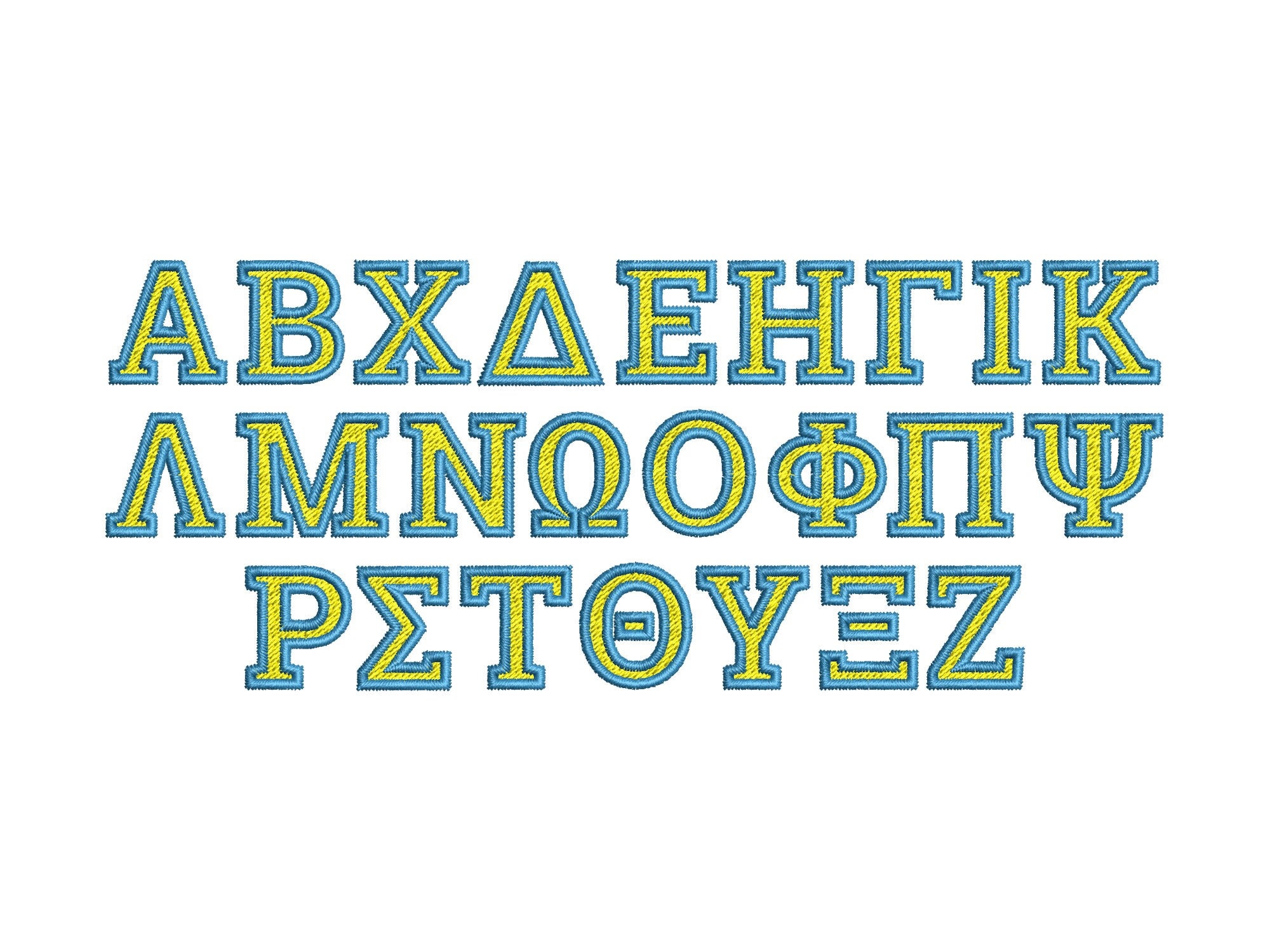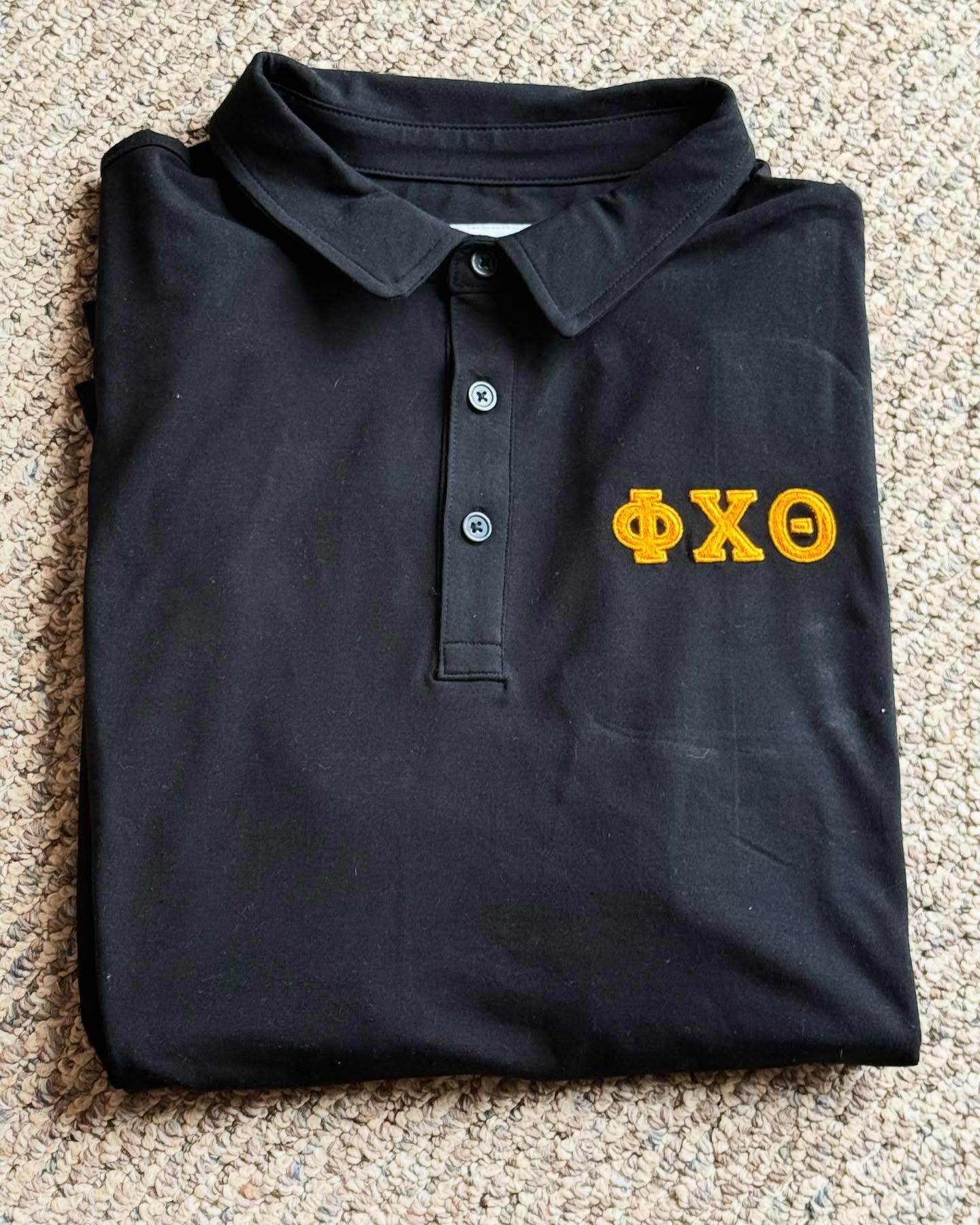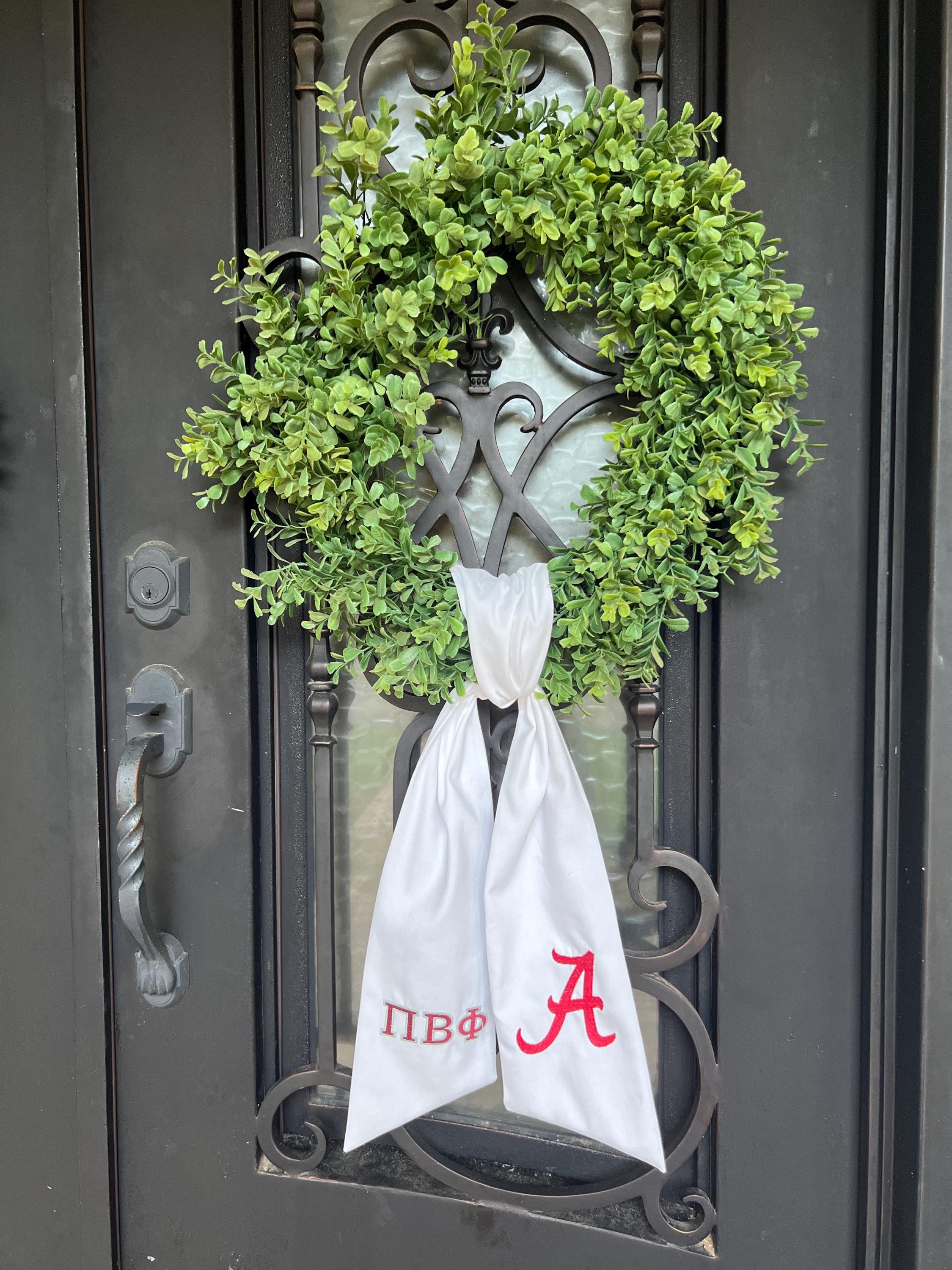
MINI fill stitch 2 colors Greek FONT alphabet sororities fraternities sport college team monogram machine embroidery designs 0.6 up to 2 inch, and BX
Fill stitch Greek letters have contrast outline.